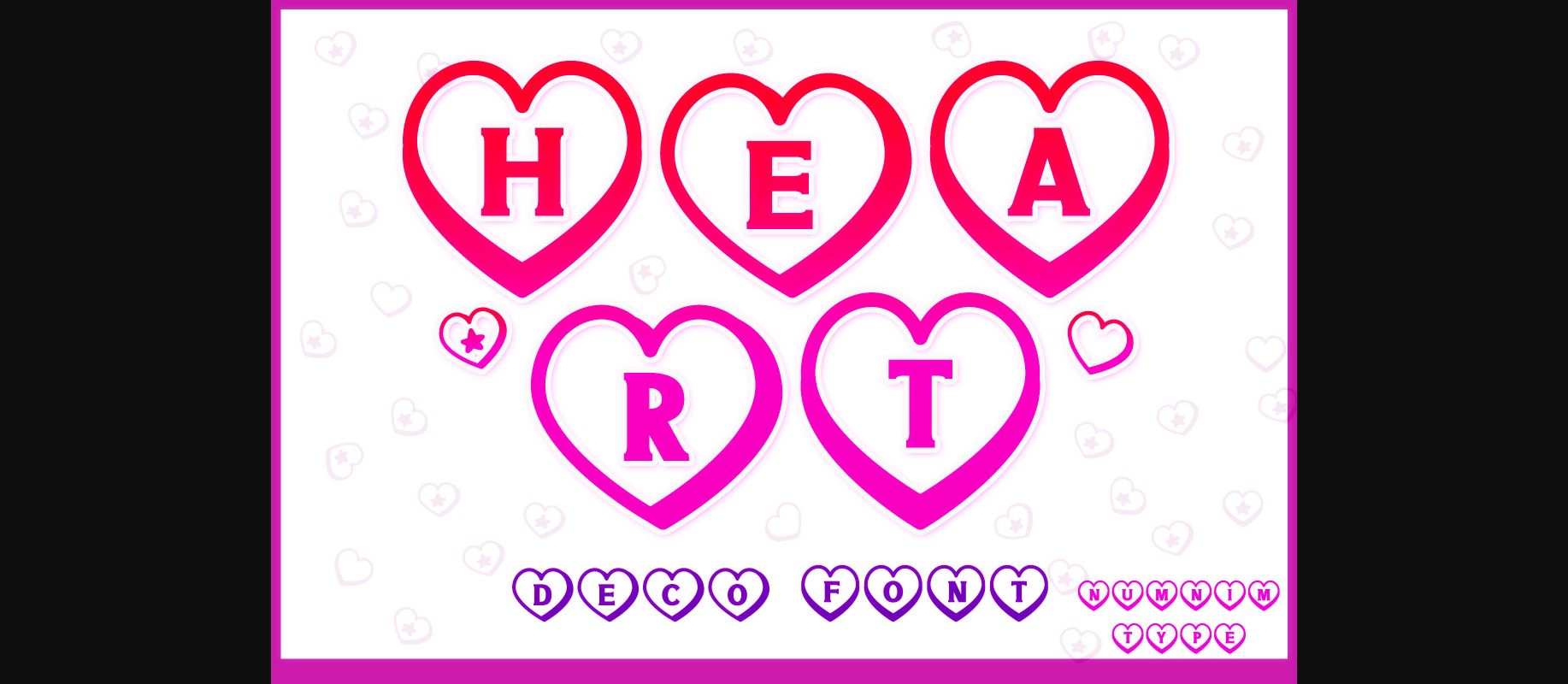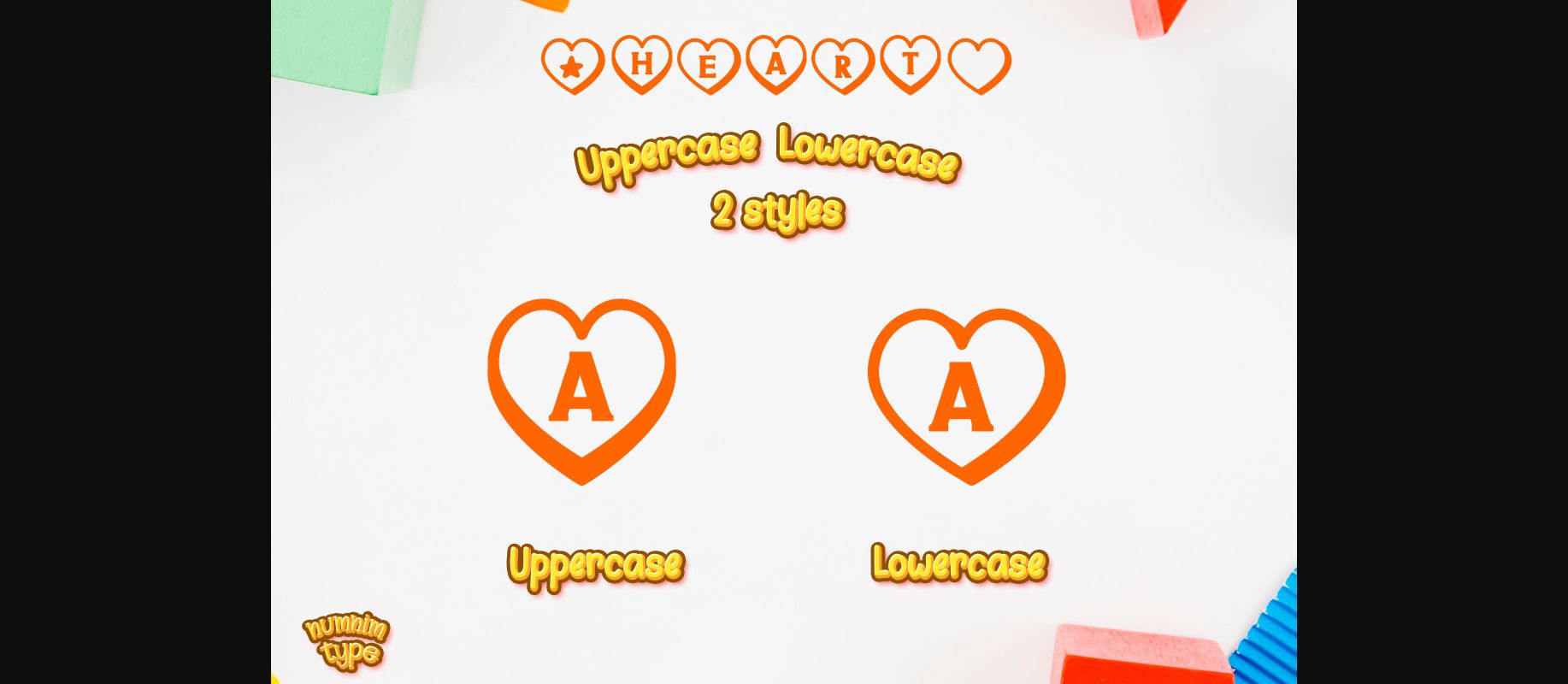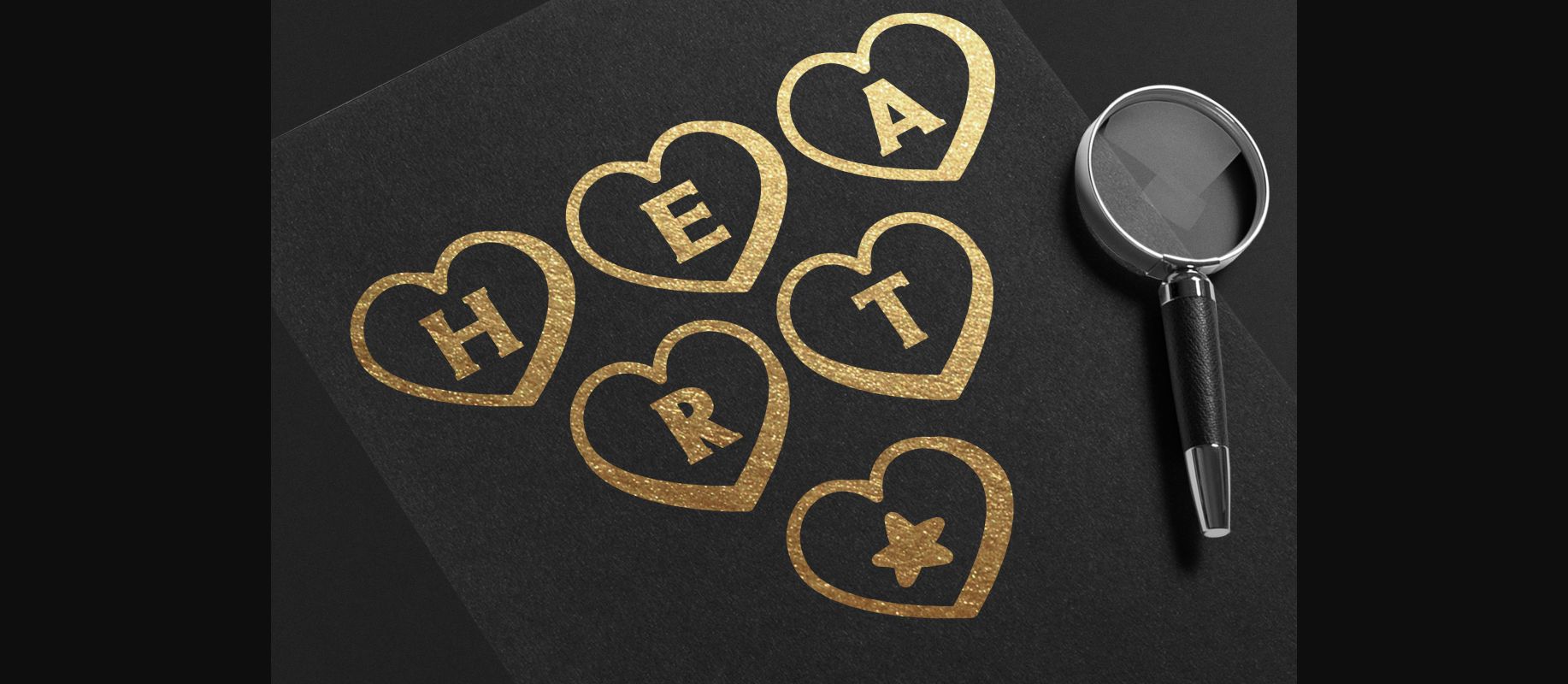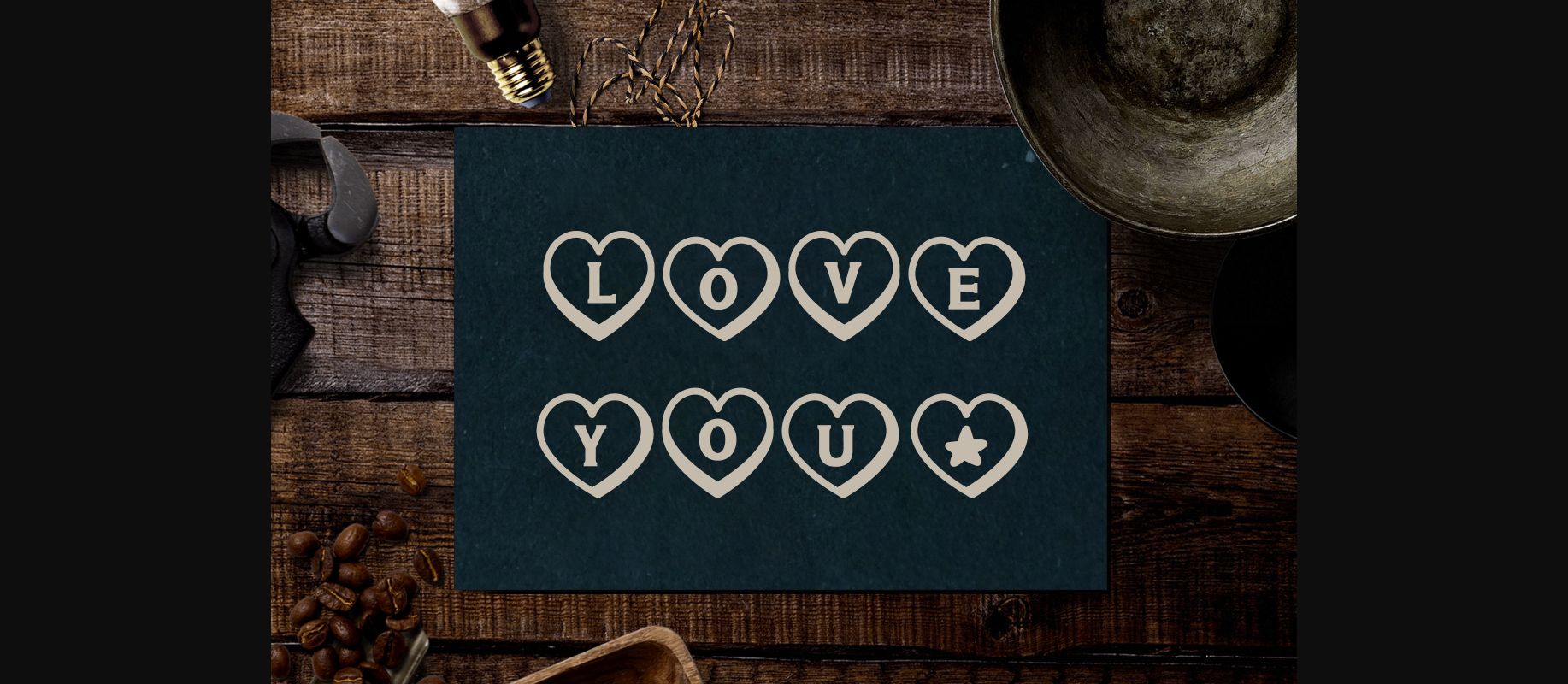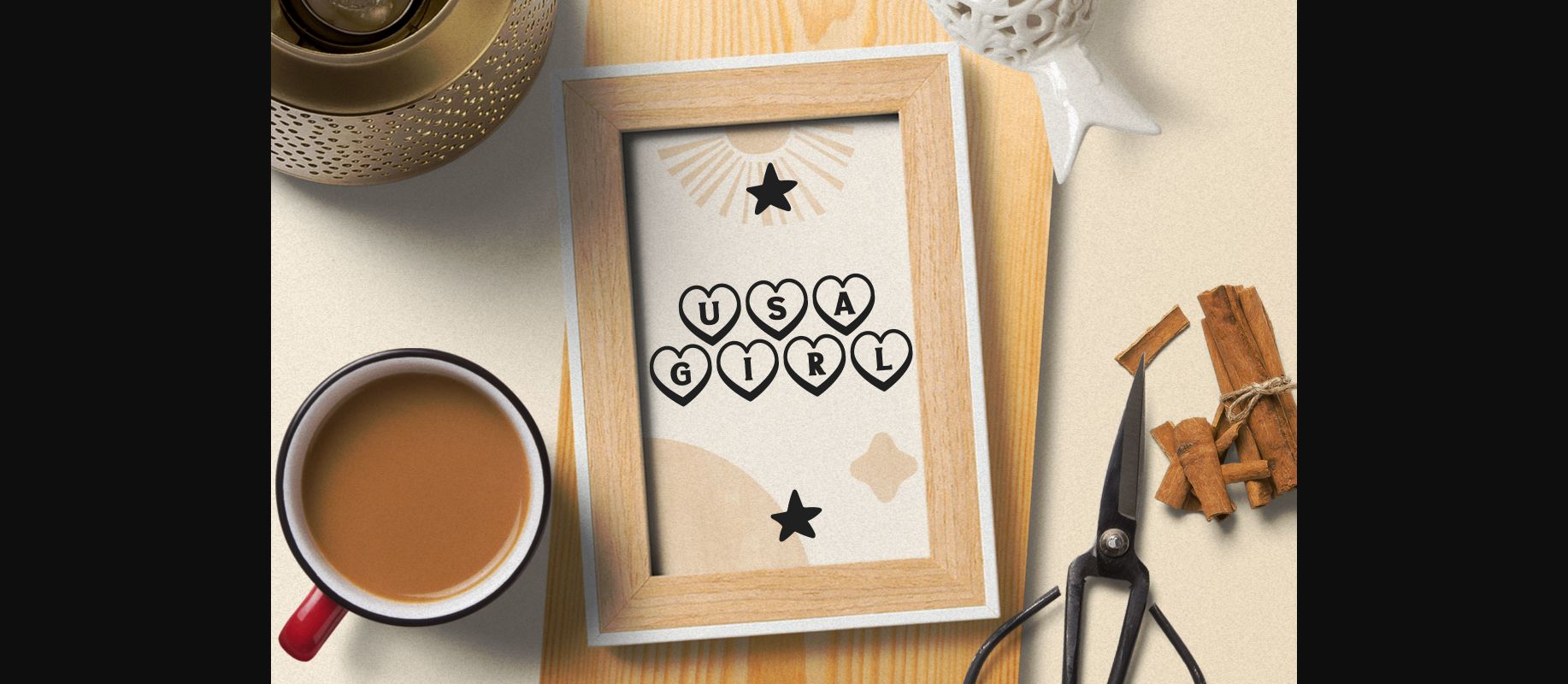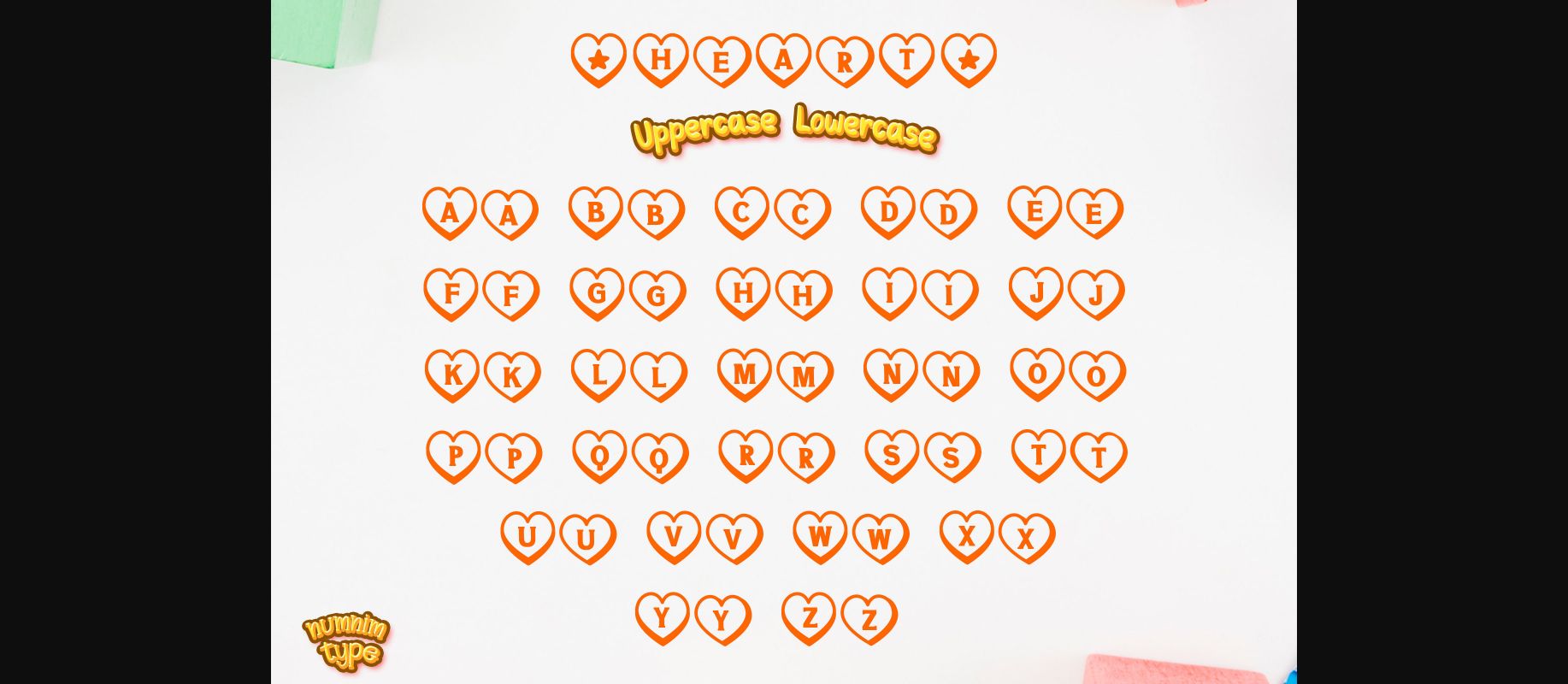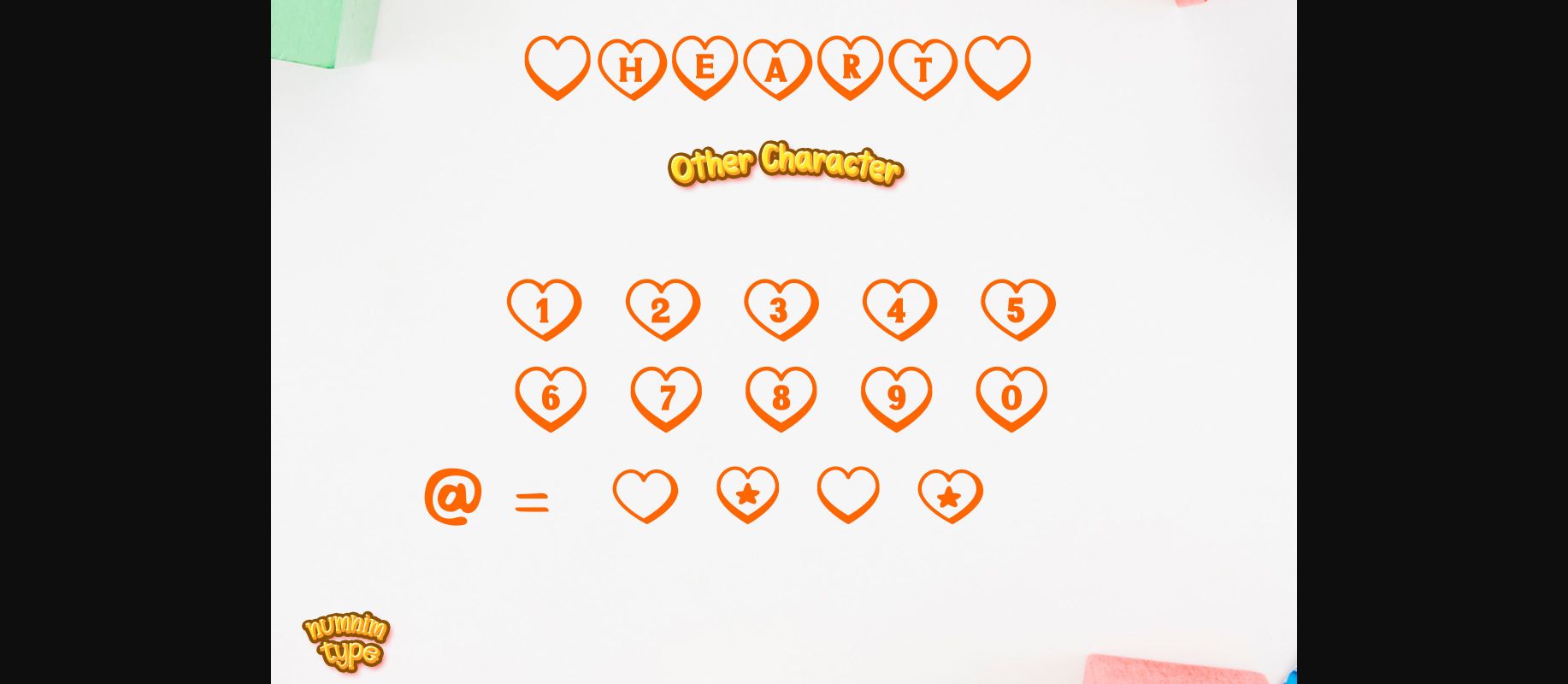
Heart Font
About Heart Font
Heart is a cute and uniquely crafted decorative display font. Its fun and playful characters make it the perfect font for stickers, mugs, t-shirts, ornaments, Valentine’s event cards, and more! This font is PUA encoded which means you can access all glyphs and swashes with ease!